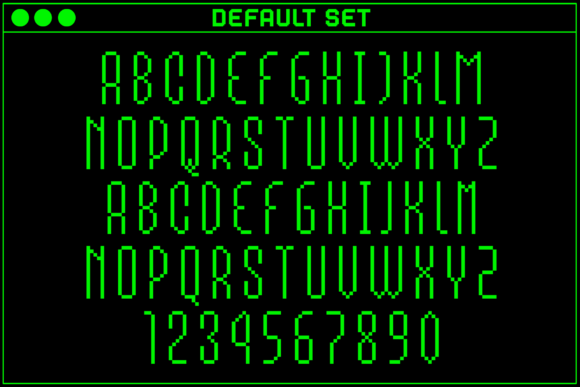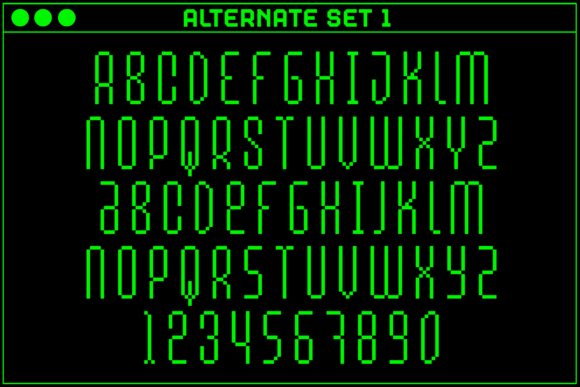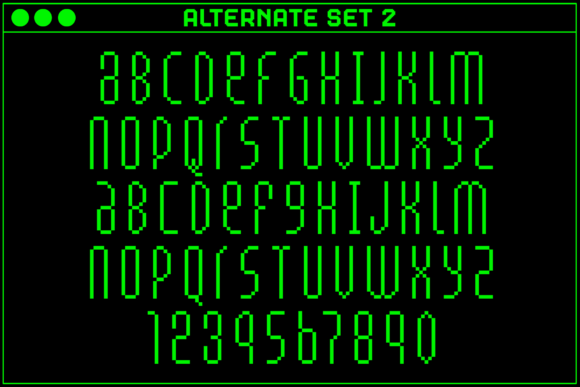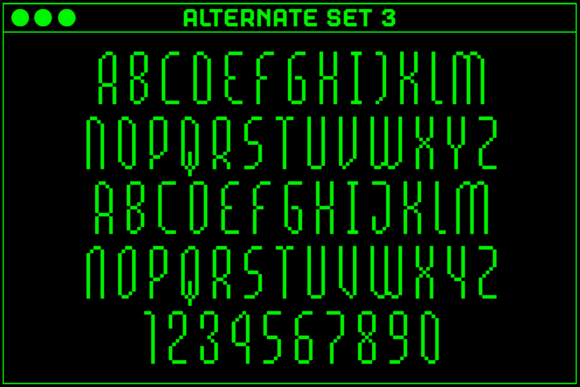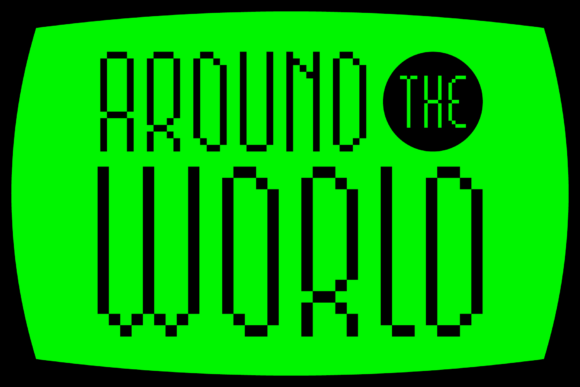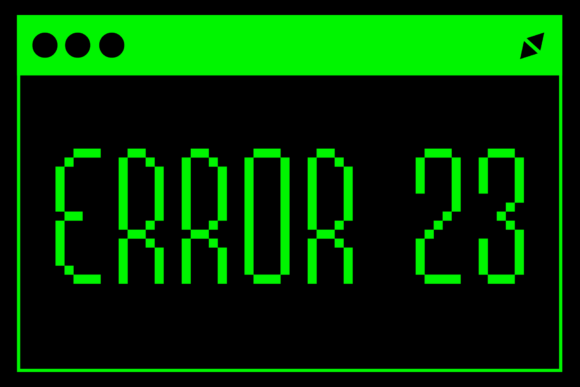
Unleashing Creativity with MultiType Pixel Slender Font
Have you ever stared at a blank canvas, feeling stuck and unsure of where to begin? That’s where the magic happens – when a spark of inspiration strikes, and your creative project takes off. For designers, finding the perfect font can be the difference between a mediocre design and a show-stopper. That’s why we’re excited to introduce you to the MultiType Pixel Slender Font, a game-changing display font that adds a unique touch to any design.
With its cool, pixelated aesthetic and PUA-encoded glyphs, the MultiType Pixel Slender Font is the ultimate design resource for anyone looking to add a trendy twist to their work. Whether you’re working on a free download or a high-stakes creative project, this font is sure to elevate your design to the next level. And with its transparent background and high-quality design, you can trust that your project will look amazing on any platform.
Key Features of MultiType Pixel Slender Font
- Unique Slender Pixel Design: MultiType Pixel Slender Font offers a distinctive and modern aesthetic, perfect for creative projects that require a touch of sophistication.
- Perfect for Digital Projects: With its slender pixel design, MultiType Pixel Slender Font is ideal for digital projects, such as website headers, social media graphics, or mobile app interfaces.
Honest Review: MultiType Pixel Slender Font
As a designer, I’m always on the lookout for high-quality design resources to enhance my creative projects. The MultiType Pixel Slender Font is one such find that caught my attention.
What works well: ✨ The font’s slender design makes it perfect for titles, headings, and any text that requires a touch of elegance. The transparent background feature allows for seamless integration with any design element. The font’s versatility is another plus, as it can be used in a variety of creative projects, from digital interfaces to print materials.
What doesn’t work so well: ⚠️ While the font is free to download, it’s not as extensive as some other font families. The limited character set might be a concern for designers who need a broader range of glyphs. Additionally, the font might not be suitable for body text due to its slender design.
Overall, the MultiType Pixel Slender Font is a great addition to any designer’s toolkit. Its unique design and high-quality aesthetic make it an excellent choice for creative projects that require a touch of sophistication.
Pros:
- Perfect for titles and headings
- Versatile and suitable for various creative projects
Cons:
- Limited character set
- Not suitable for body text
Common Use Cases for MultiType Pixel Slender Font
This font is ideal for a wide range of creative projects, including: